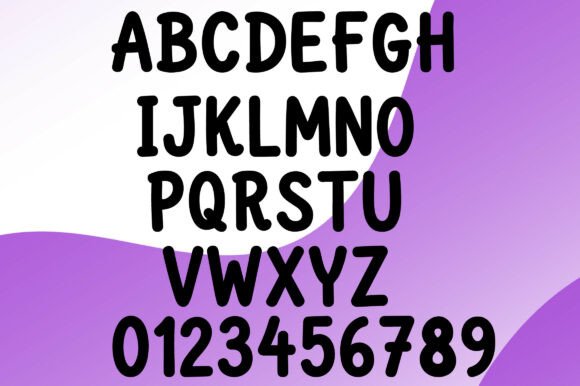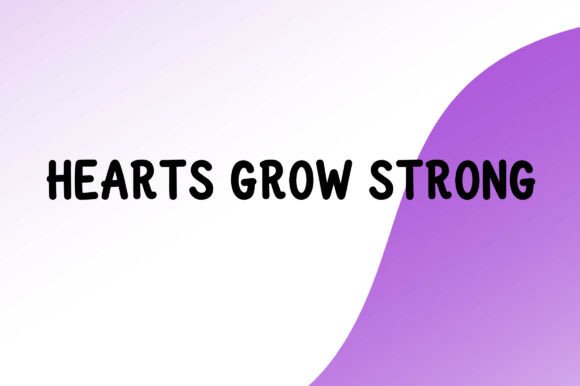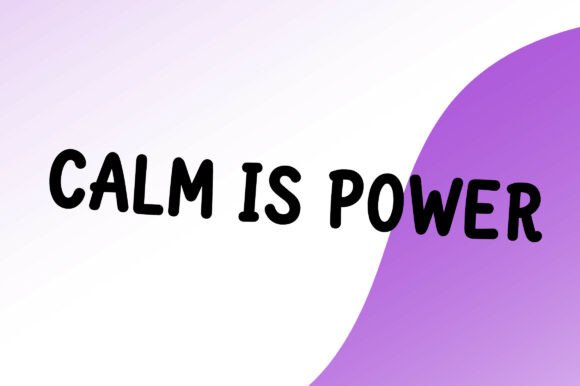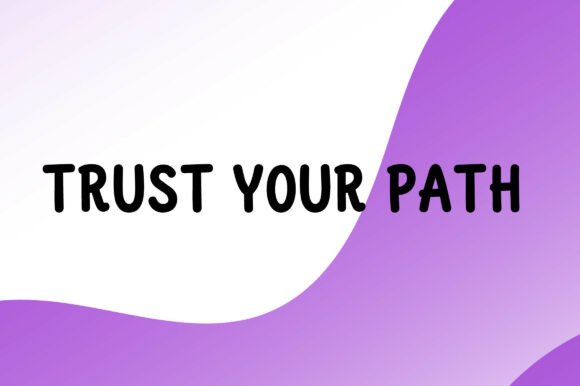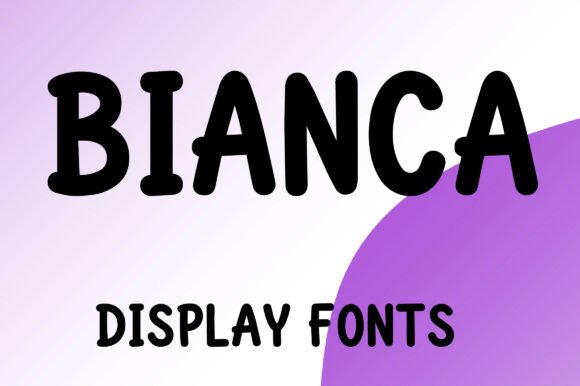
Discover the Elegance of Bianca Font: A Stylish Handwritten Display Font
In the world of typography, a good font can make all the difference in the success of a design project. For designers and crafters looking for a stylish, yet simple and versatile font, Bianca Font is an excellent choice. This beautiful handwritten display font boasts a medium thickness, minimalist design, and a natural feel that makes it perfect for a wide range of creative applications.
What Makes Bianca Font Stand Out?
Bianca Font is characterized by its elegant, handwritten style with a nice medium thickness that gives it a balanced and harmonious look. Its minimalist design ensures that it remains simple and uncluttered, making it easy to read and use in various contexts. The font’s subtle incorporation of a natural feel adds a touch of warmth and personality, setting it apart from more generic fonts.
One of the key benefits of Bianca Font is its versatility. Whether you’re working on a branding project, a website, a craft project, or any other creative endeavor, this font can be adapted to suit your needs. Its stylish and modern look makes it perfect for headlines, titles, and short texts, while its simplicity and readability ensure that it can be used for longer texts as well.
Available Characters and Features
Bianca Font is available in uppercase English letters A-Z and numbers 0-9, providing a solid foundation for a wide range of design projects. This selection allows for creative freedom without the limitations of a more restricted character set. Whether you’re looking to create a bold statement or a subtle design element, Bianca Font has got you covered.
Applications of Bianca Font
The applications of Bianca Font are virtually limitless. Here are a few ideas to get you started:
• Branding and Logo Design: Use Bianca Font to create a memorable and stylish logo that reflects your brand’s personality.
• Web Design: Add a touch of elegance to your website with Bianca Font, perfect for headings, titles, and short texts.
• Crafting and DIY Projects: Bianca Font is ideal for crafters working on projects such as handmade cards, scrapbooking, and other paper crafts.
• Social Media Graphics: Create eye-catching social media graphics, quotes, and posts with Bianca Font to engage your audience.
• Advertising and Marketing Materials: Use Bianca Font in your advertising and marketing materials to add a stylish and professional touch.
Why Choose Bianca Font?
There are many reasons why Bianca Font should be your go-to choice for your next design project:
• Unique Style: Bianca Font offers a unique and stylish look that will set your project apart.
• Easy to Read: Despite its stylish design, Bianca Font remains easy to read, making it perfect for a wide range of applications.
• Versatile: Bianca Font can be used in various contexts, from digital projects to print materials.
• Express Your Creativity: With Bianca Font, you can express your creativity without limits, thanks to its comprehensive character set and versatile design.
Bianca Font is a stylish, handwritten display font that offers the perfect blend of elegance, simplicity, and versatility. Its medium thickness, minimalist design, and natural feel make it an excellent choice for designers and crafters looking for a font that can be used in a wide range of creative applications. With its availability in uppercase English letters A-Z and numbers 0-9, Bianca Font is ready to help you add a touch of style and creativity to your next project. So why wait? Discover the elegance of Bianca Font today and take your designs to the next level.